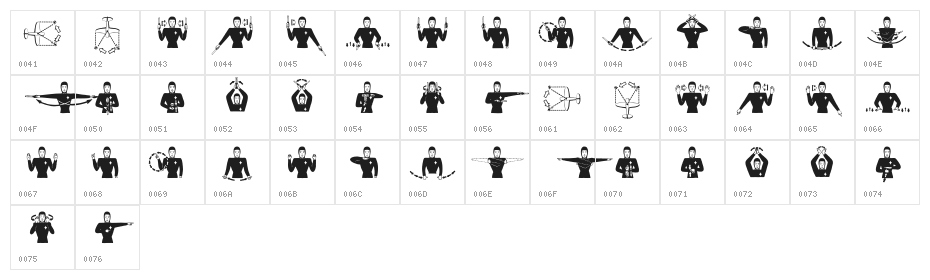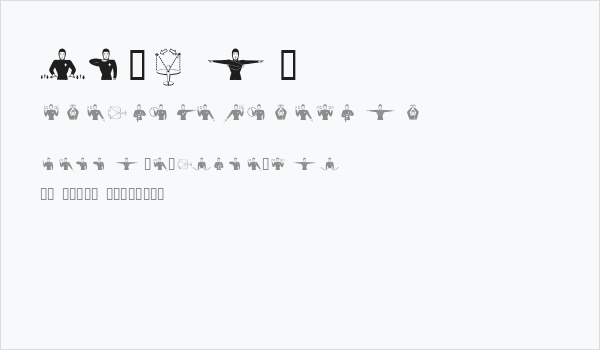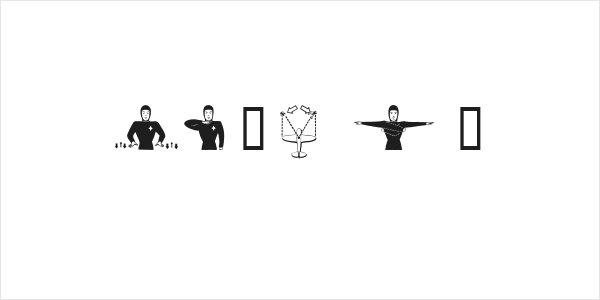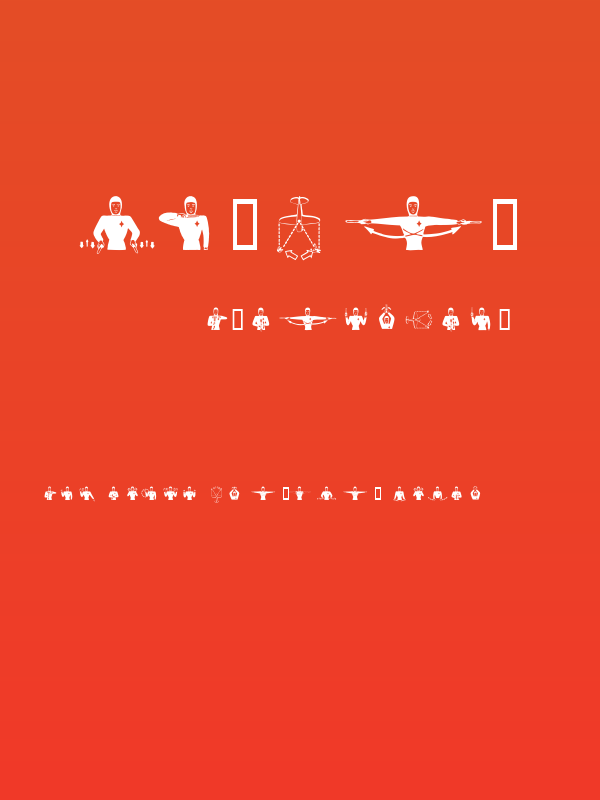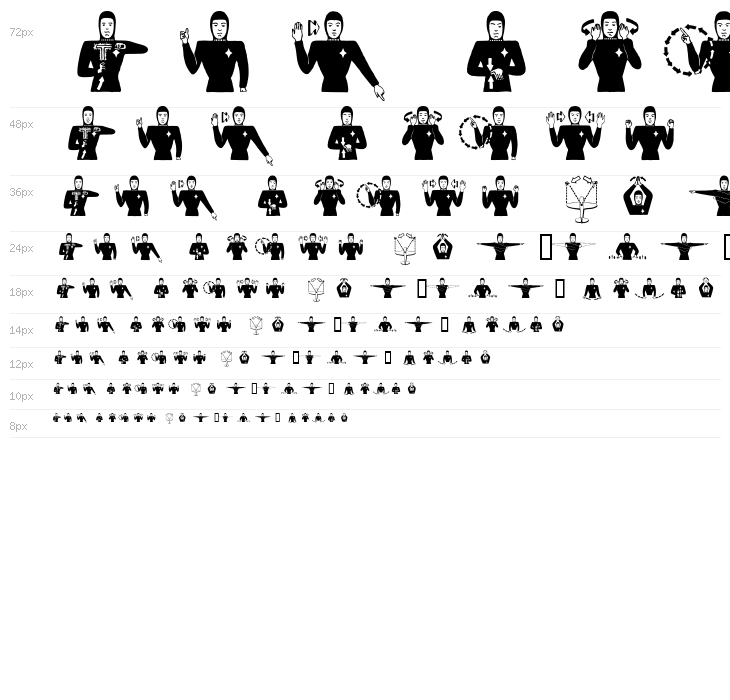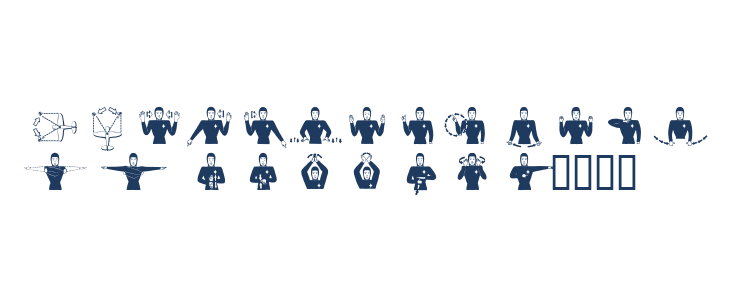
flyboy Font
flyboy Description
This is a highly decorative and playful font featuring stylized human figures in various poses. Each character is represented by a unique illustration, making it more of an artistic expression than a traditional typeface. The figures are bold and cartoonish, with exaggerated features and dynamic postures. This font is not suitable for body text due to its illustrative nature but can be used effectively in creative projects where a whimsical and humorous touch is desired. The characters are consistent in style, maintaining a cohesive look throughout the set.
| Overall Style | Whimsical and playful |
| Use Case | Logos, Posters, Artistic projects |
| Proposed Projects | Ideal for comic books, children's books, playful posters, and creative branding projects. |